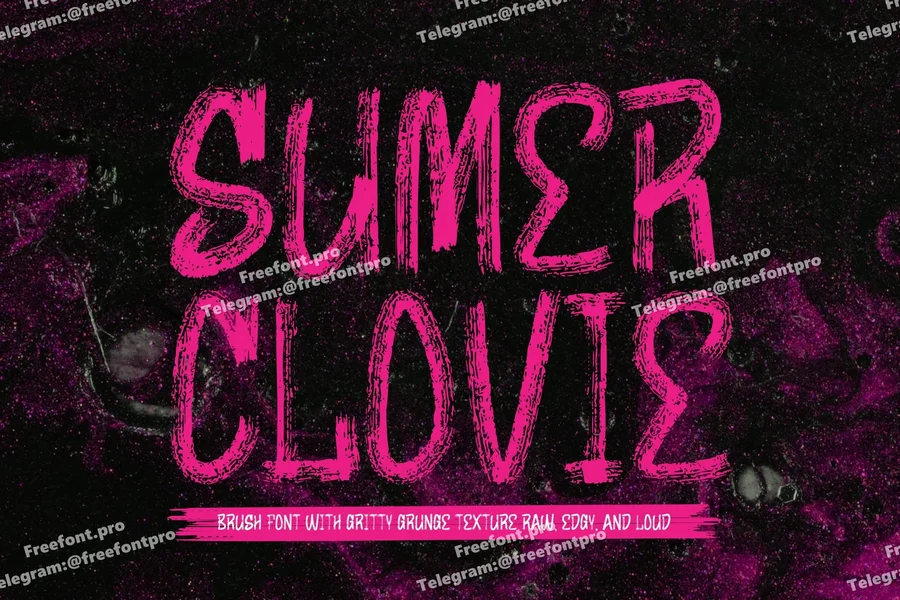
Sumer Clovie – Handwritten Brush Font
Introducing Sumer Clovie, a freestyle brush font moving with energy. This font was created with digital brush strokes, carefully vectorized to keep the textures. Sumer Clovie is a street font that delivers a loud message and strong.
This font equipped with stylistic alternates and swashes to gives a more powerful design. Sumer Clovie is ideal for logos, banners, quotes, books, social media posts, posters, flyers, stickers, and many more!